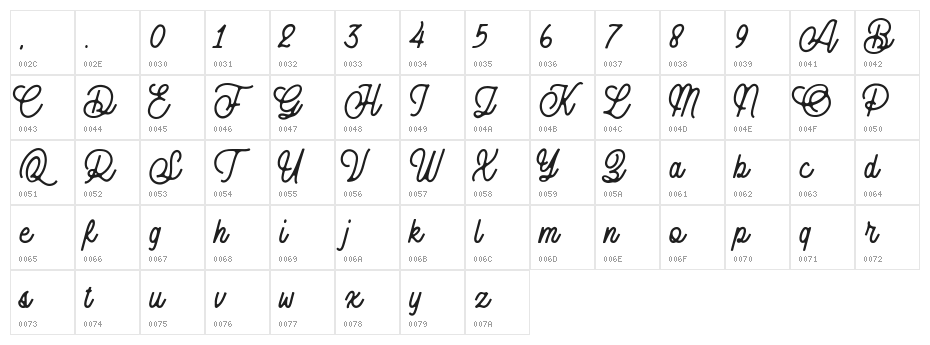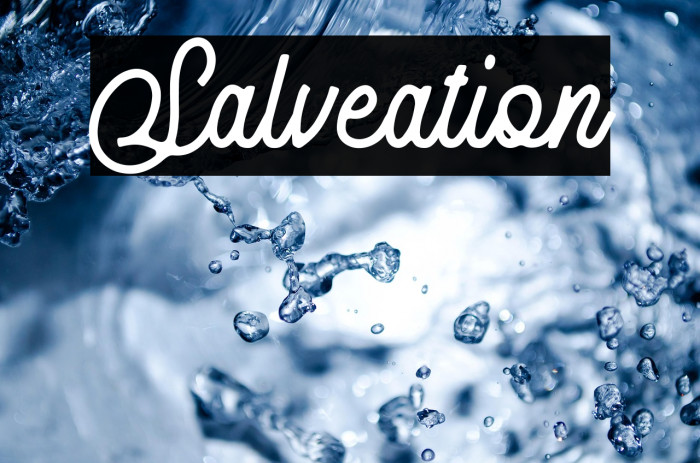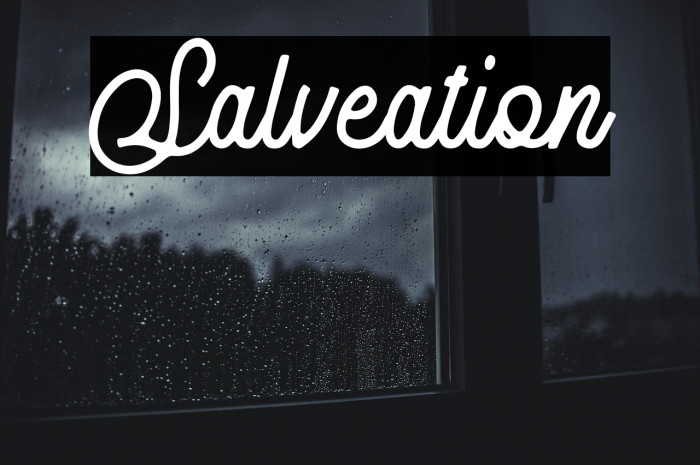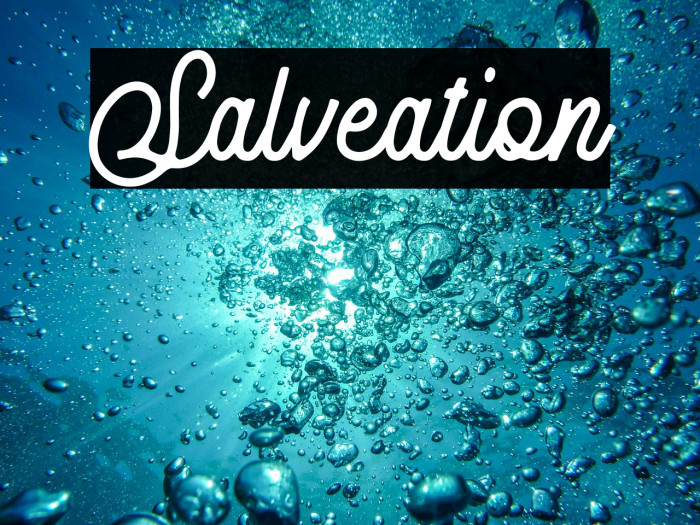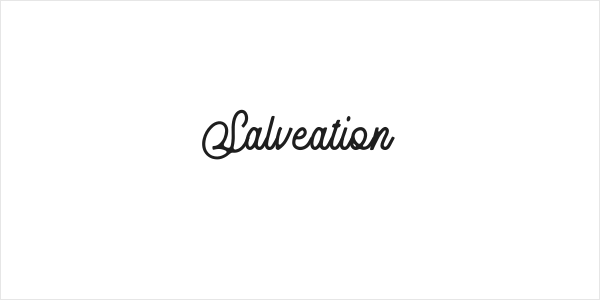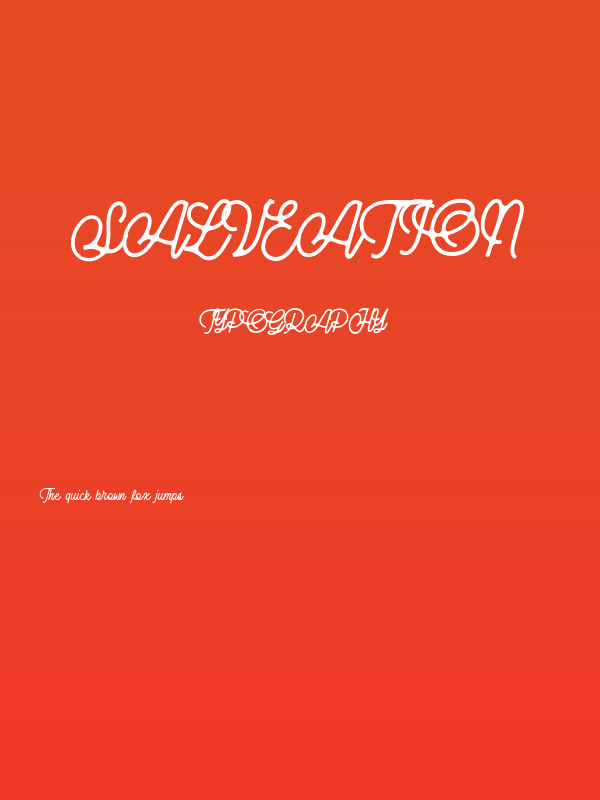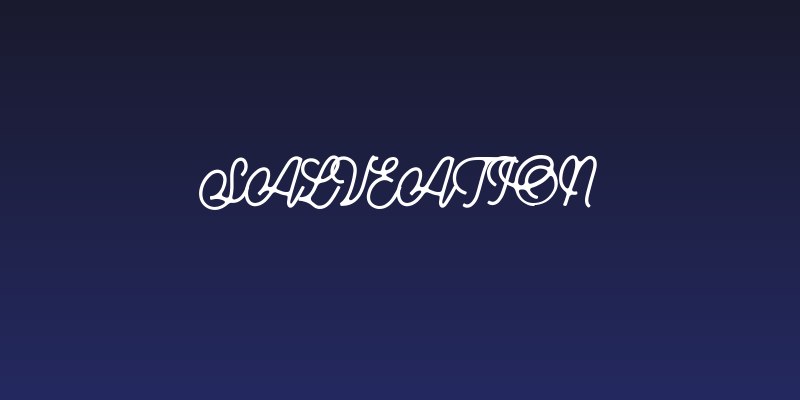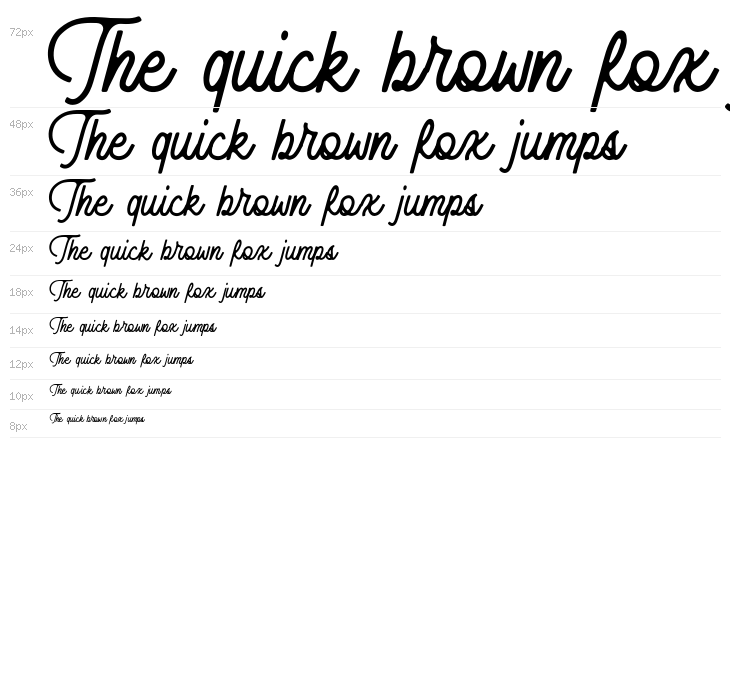
Salveation Font
Salveation Description
This font features a lively and flowing script style, characterized by its elegant cursive letters that connect smoothly. The uppercase letters are ornate, with intricate loops and swirls, while the lowercase letters maintain a consistent rhythm and fluidity. The numerals are bold and clear, complementing the overall aesthetic. The special characters are thoughtfully designed to match the script's elegance, making it suitable for creative and decorative purposes.
| Proposed Projects | Ideal for wedding invitations, greeting cards, logos, and branding materials that require a touch of elegance and sophistication. |